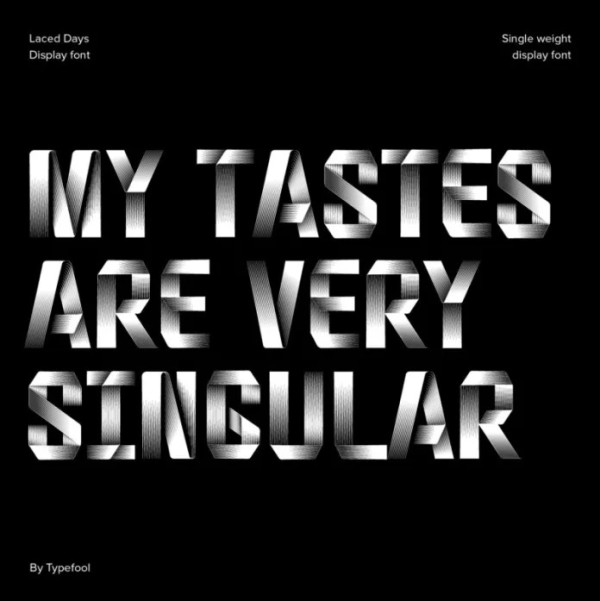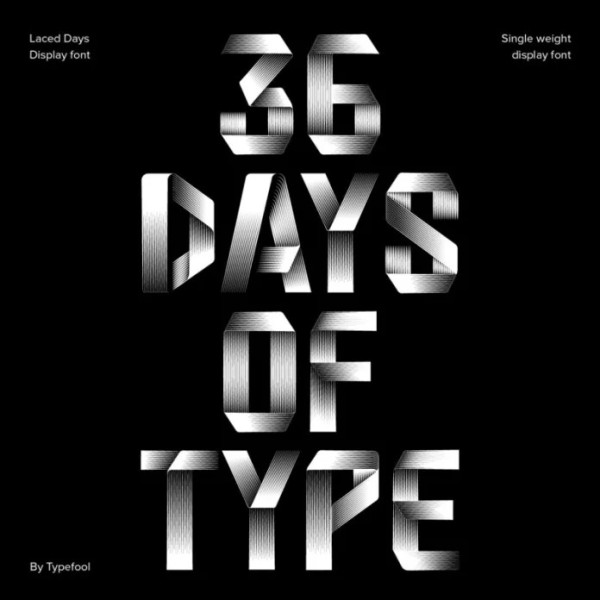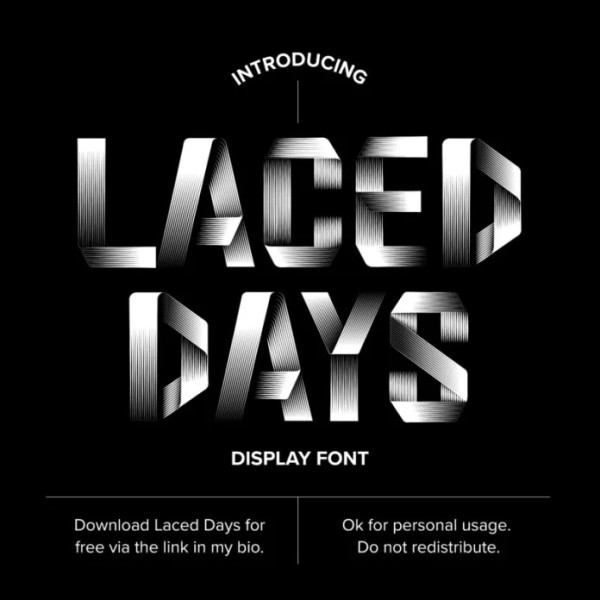
Laced Days Font is a bold and authentic display font crafted & designed by Typefool. This makes the font extremely suitable for turning it into a display font. And as a thank you for the support and the love, the font is completely free to download!